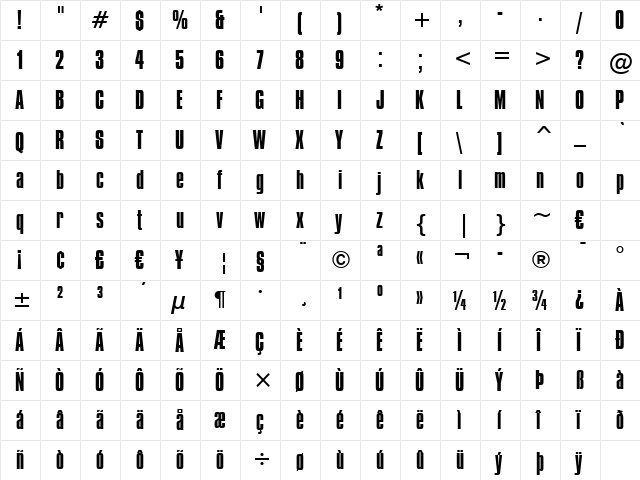
font104 Regular
Design Context for font104 Typeface
font104 offers clean, dependable letterforms without strong stylistic allegiance, making it a practical choice for designers who need flexibility.